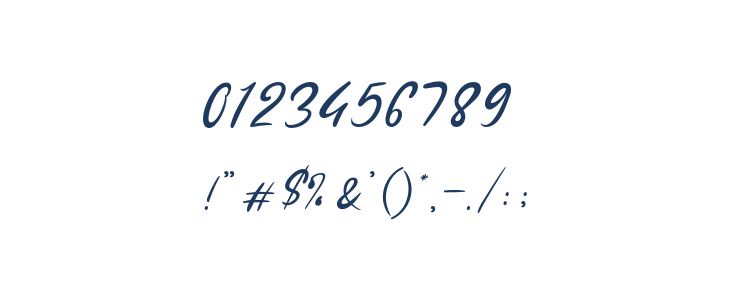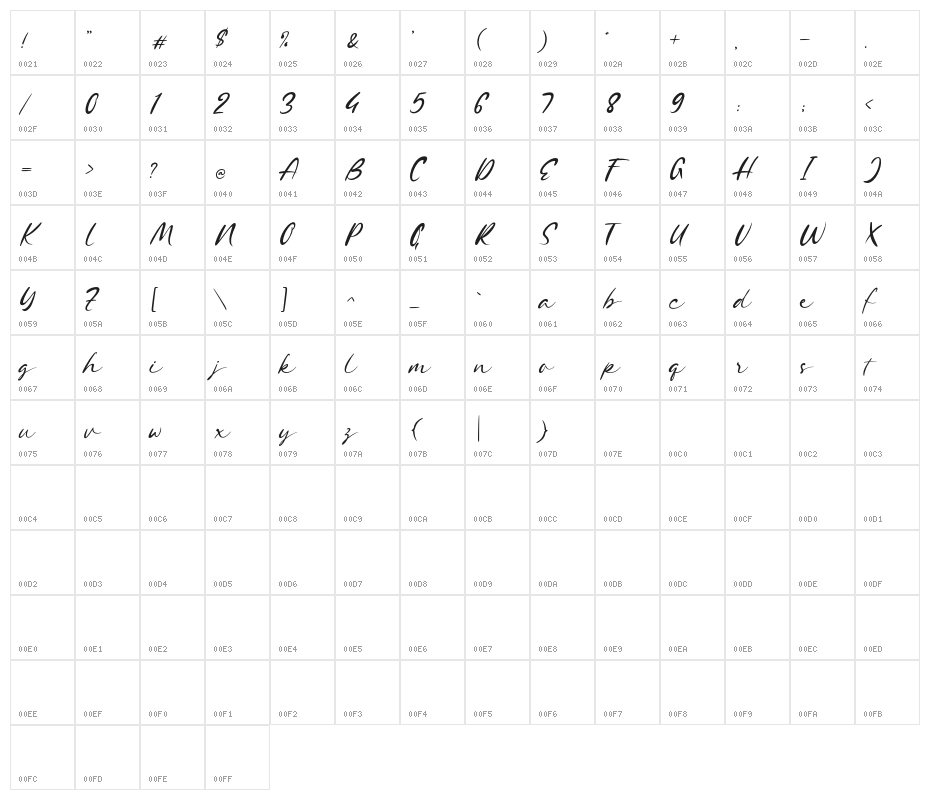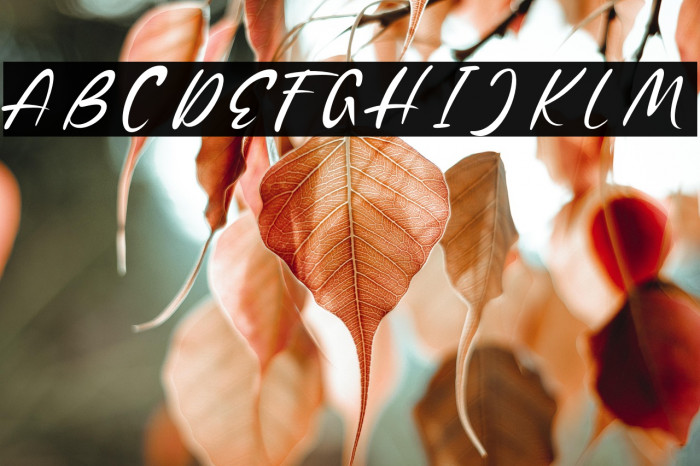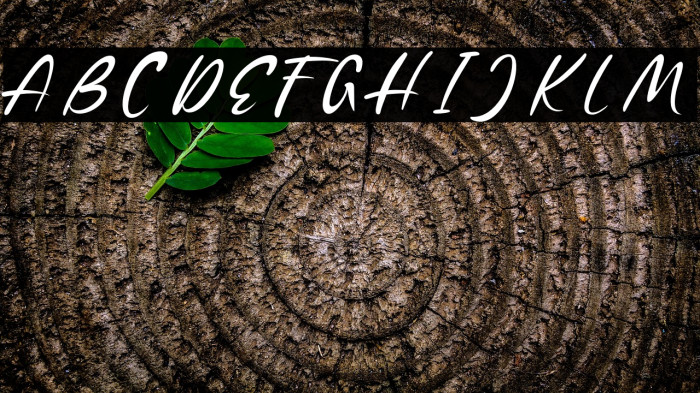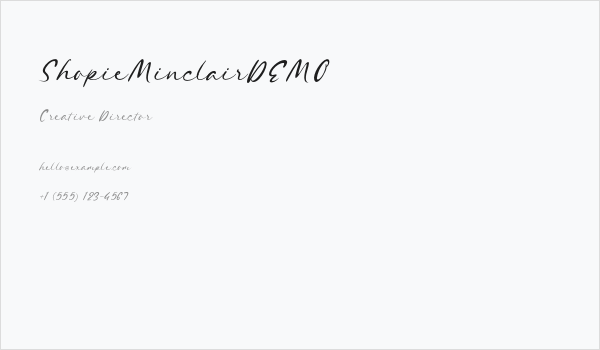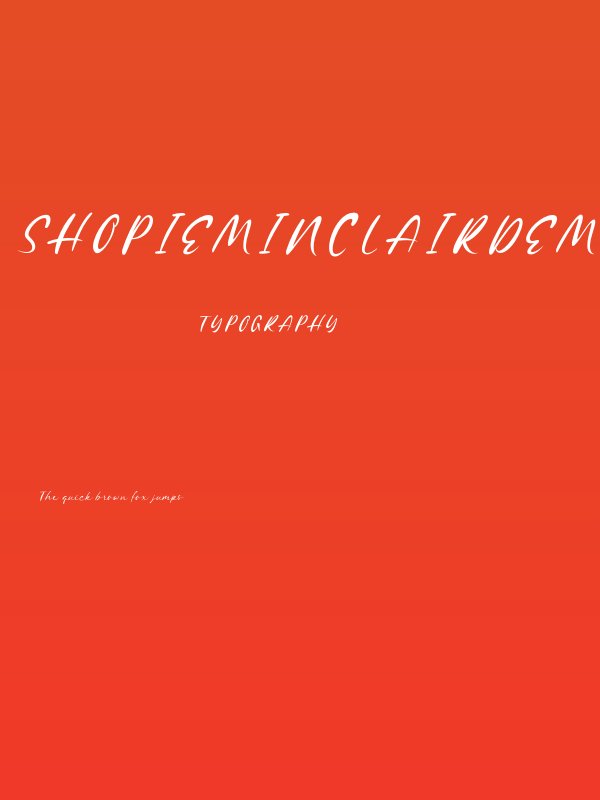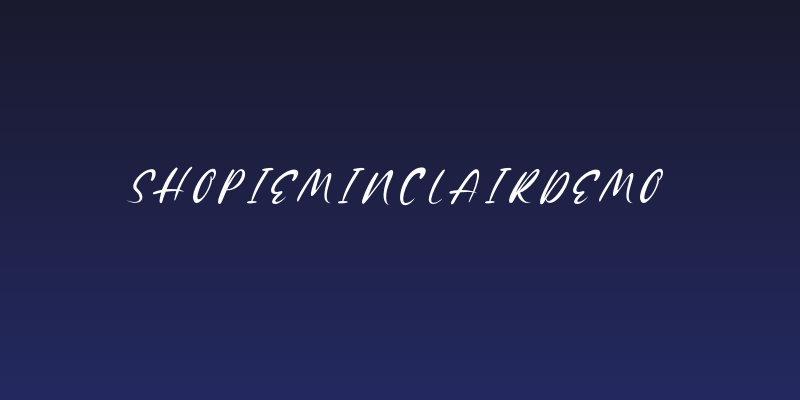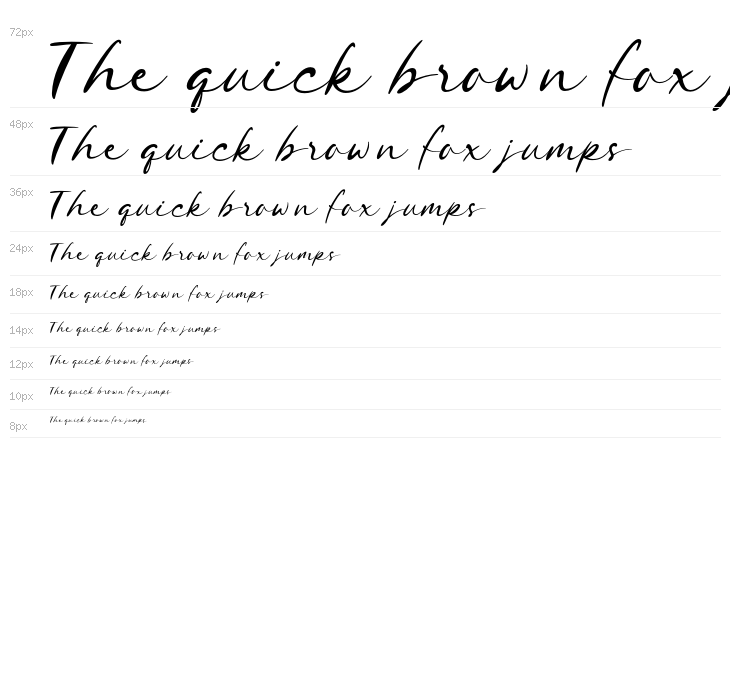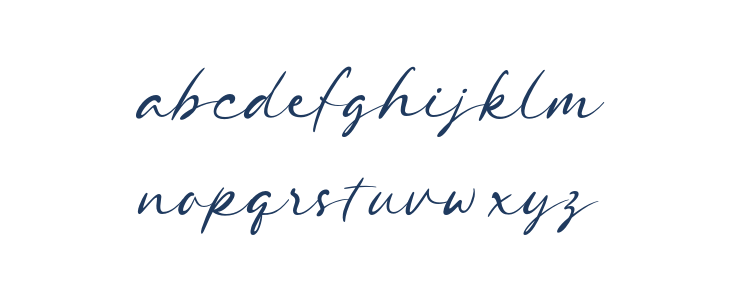
ShopieMinclairDEMO Font
ShopieMinclairDEMO Description
This font features a fluid and elegant script style, characterized by its smooth, flowing lines and slight slant, which gives it a sense of movement and grace. The uppercase letters are bold and confident, while the lowercase letters maintain a consistent rhythm, enhancing readability. The numerals are distinct and well-proportioned, complementing the overall aesthetic. Special characters are thoughtfully designed to match the script's elegant style, making it versatile for various uses. The font's overall appearance is both sophisticated and approachable, suitable for a range of creative projects.
| Proposed Projects | Ideal for wedding invitations, greeting cards, branding, and elegant packaging designs. |